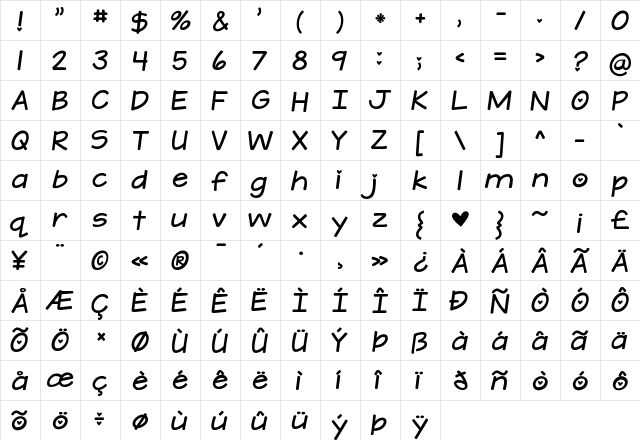
KG A Teeny Tiny Heart Regular Font Preview
KG A Teeny Tiny Heart Regular
KG A Teeny Tiny Heart Regular Font Details
| Foundry | Kimberly Geswein |
| Designer | Kimberly Geswein |
Design Context for KG A Teeny Tiny Heart Typeface
KG A Teeny Tiny Heart is a composed and adaptable typeface that performs quietly and consistently across a wide range of design contexts.